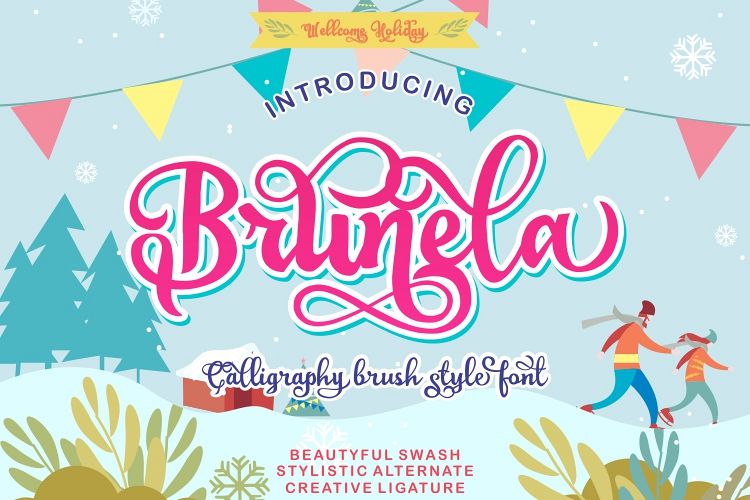
Brunela Beautyful Calligraphy brush scripts font
Brunela
BRUNELA  is a brush font with calligraphy style, so that we can write beautifully to beautify your typography design, with the concept of handwriting, have a soft, happy, cheerful and playful feel, so that it fits perfectly applied in happy, beautiful and cute themed designs. design:Z
Greeting card
• T-Shirt Design
• Typography Design
•  Logo
•  Other graphic design
accompanied